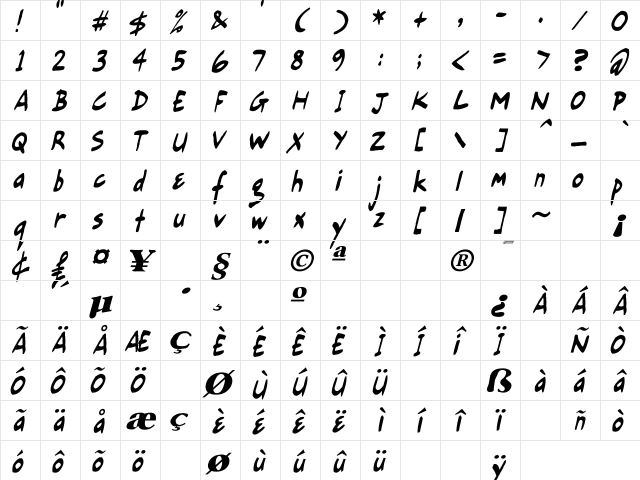
Gort's Fair Hand Regular normal
Design Context for Gort's Fair Hand Regular Typeface
Gort's Fair Hand Regular brings a calligraphic fluidity to the page — its connecting strokes and expressive curves give it an unmistakably human quality.
Font Pairing: Combine Gort's Fair Hand Regular with a simple geometric sans for maximum contrast — the tension between flowing curves and clean structure is a classic typographic pairing.
Pro Tip: Pair Gort's Fair Hand Regular with a clean sans-serif for supporting text. The contrast between fluid script and geometric structure creates an elegant typographic hierarchy.